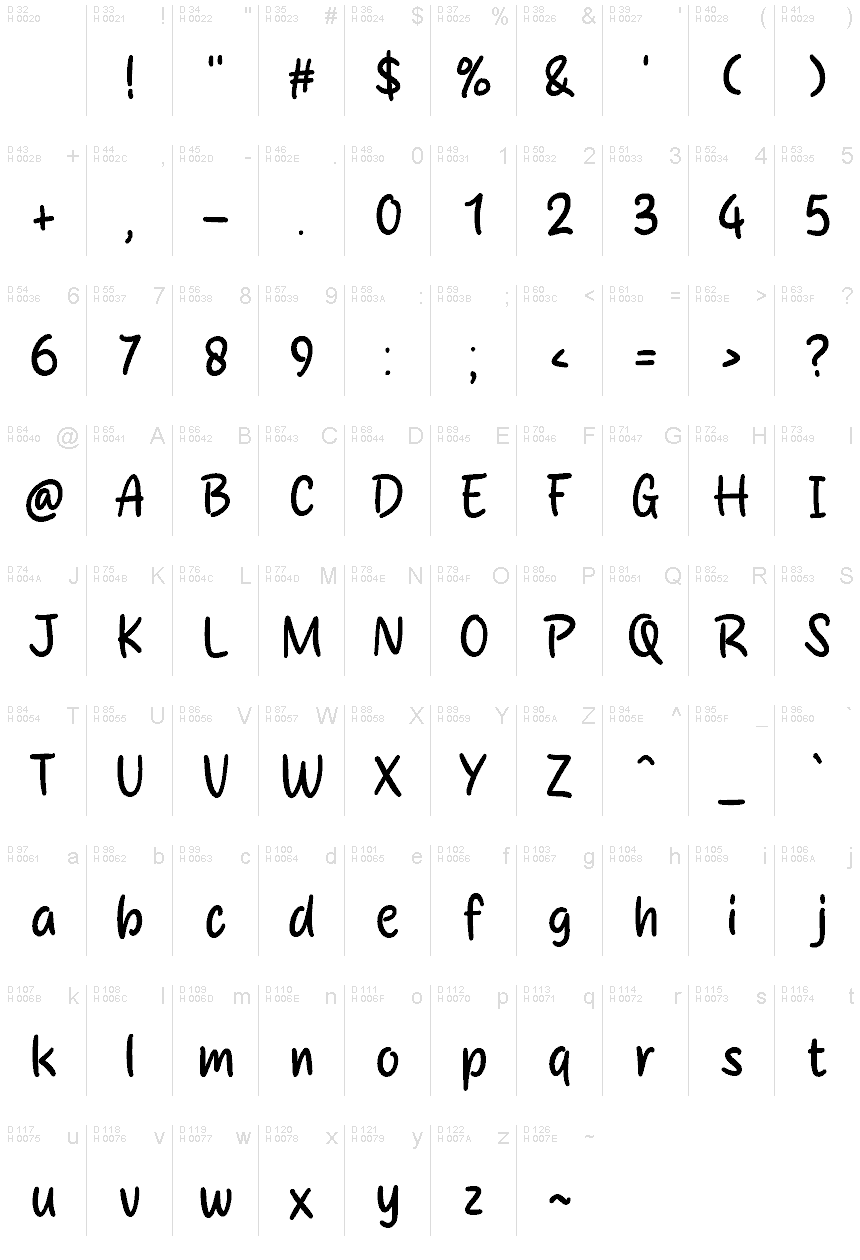
Bilyon Host
Bilyon Host font by MJType features a casual handwritten style with informal, relaxed character shapes. The design has an approachable and organic feel thanks to its subtle flow and contemporary flair that provides a modern edge. The soft corners open the typeface even further, making it as friendly as each of its letter sets.
Such a free handwritten font would be great for creating invitation cards that call for delicate designs such as baby showers or weddings. It also has the potential to enrich corporate identity through packaging design, headlines in print newspapers/magazines, and advertising medium use. The font can also complement branding logotypes and online content on social media platforms or websites.